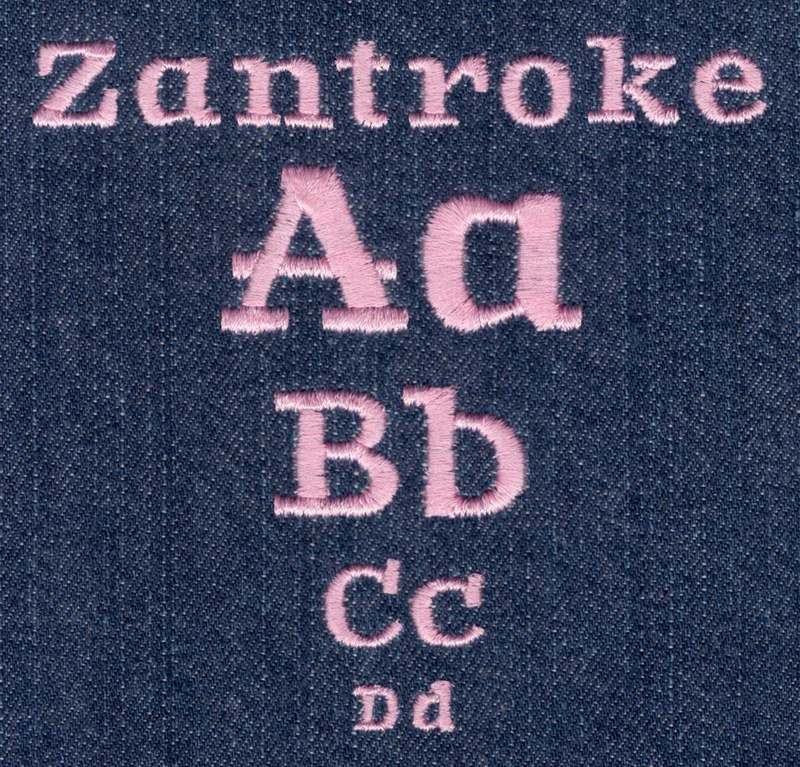
394 Zantroke Mini Satin Font
Zantroke Mini Satin Font comes in 0.25", 0.5", 0.75" & 1" heights based on the capital "A". All sizes finished in standard satin stitch. Includes uppercase letters, lowercase letters, numbers and four punctuation marks.